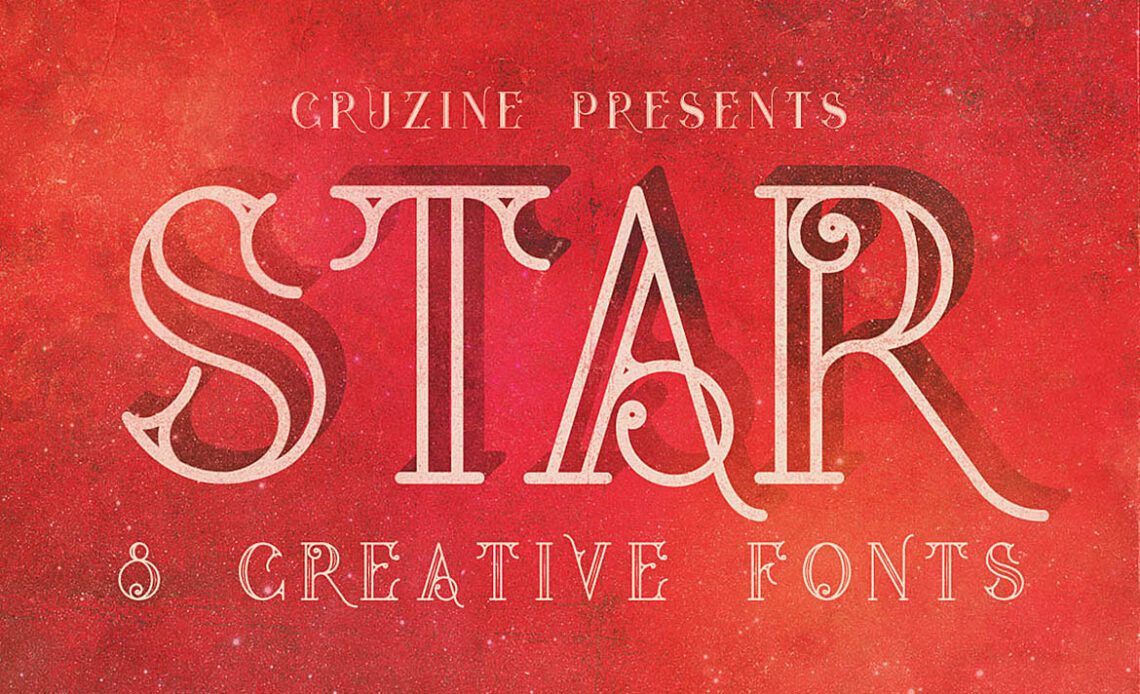
Star Red Font
Prepare to be dazzled by the celestial allure of Star Red Font, a stellar display font that's out of this world! With its mesmerizing vintage charm and a constellation of 8 captivating styles, Star will illuminate your designs like a thousand twinkling stars. Let the radiant glow of this typographic masterpiece cast a spell on your creations, making them shine with an otherworldly brilliance.
Unleash your creativity and embark on a cosmic adventure with Star Red Font. From enchanting logos that soar to stunning posters that captivate, this font has the power to transform your designs into celestial wonders. Its versatility knows no bounds, making it the perfect choice for everything from ethereal branding to enchanting invitations.